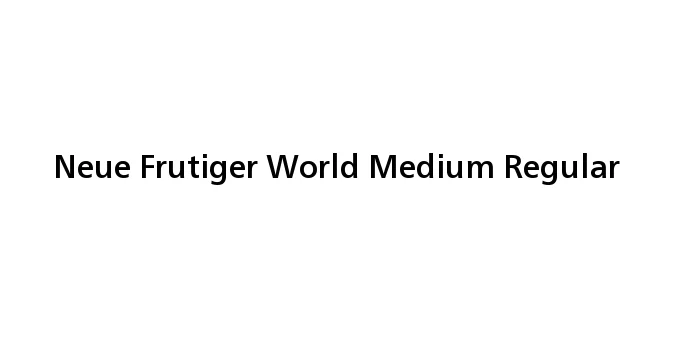
Neue Frutiger World Medium Regular
Designed by Adrian Frutiger and Akira Kobayashi
Neue Frutiger World Medium Regular is a significant expansion and refinement of the original Frutiger typeface, which was initially commissioned in 1968 for the Charles de Gaulle Airport wayfinding system. Developed by the Monotype Studio under the direction of Akira Kobayashi, this version was specifically engineered to address the complexities of global communication. It retains the signature humanist warmth and open apertures of Adrian Frutiger's original design while ensuring seamless consistency across a vast array of international scripts.
The World edition is renowned for its incredible linguistic reach, supporting more than 150 languages including Greek, Cyrillic, Georgian, Armenian, Hebrew, Arabic, and Thai. The Medium Regular weight is particularly valued for its versatility; it offers enough visual weight to command attention in subheadings while remaining remarkably legible in dense blocks of text. This makes it an essential tool for designers working on multi-regional projects where clarity and a unified brand voice are paramount.
Neue Frutiger World Medium Regular Best Uses
Optimized for high-visibility environments like airports and transit hubs.
Ideal for international brands requiring a consistent look across different languages.
Provides a clean, professional aesthetic for mobile apps and web platforms.
Excellent for hierarchy in magazines, reports, and technical manuals.